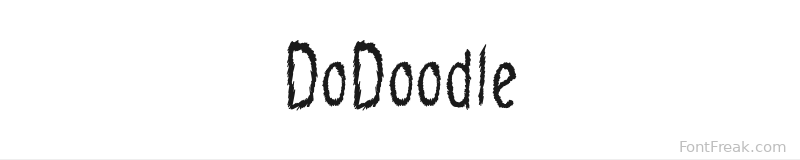
DoDoodle
DoDoodle, created by Galdino Otten Fonts, is a captivating handwritten typeface that brings a playful and artistic flair to any design project. This font, characterized by its irregular, wavy strokes and organic feel, embodies a unique charm that stands out in the crowded font landscape. With a medium stroke weight and minimal contrast, DoDoodle's letters maintain a casual yet expressive look, making it ideal for conveying warmth and friendliness. The spacing is thoughtfully designed to enhance legibility while preserving the informal vibe typical of handwritten styles.
Best suited for creative applications, DoDoodle excels in various contexts. It can add a whimsical touch to wedding invitations, creating an inviting atmosphere for guests. Additionally, its lively character makes it an excellent choice for children's book covers, where a sense of fun and imagination is essential. Restaurant menus can also benefit from the font's playful aesthetic, helping to showcase a casual dining experience or a trendy eatery. Furthermore, social media graphics and promotional materials will shine with the distinctive flair of DoDoodle, making it a go-to option for content creators looking to engage their audiences.
Targeting graphic designers, small business owners, and content creators, DoDoodle is perfect for anyone seeking to infuse their work with a personal touch. Its freeware license means that users can access it without restriction, allowing for broad application across various projects.
What sets DoDoodle apart is its ability to convey personality and creativity effortlessly. The font's unique style captures attention while maintaining readability, making it a versatile addition to any designer's toolkit. For those interested, the DoDoodle font free download is readily available, enabling users to elevate their projects with this delightful typeface.